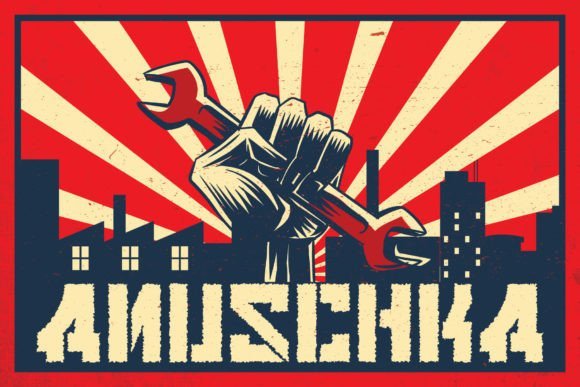
When Inspiration Strikes Do you ever find yourself browsing through vintage shops or antique stores, mesmerized by the retro aesthetic of old communist-era propaganda posters? That’s exactly where the creative spark struck for designers and artists who fell in love with the Anuschka Font. This cool, faux Cyrillic display font is an instant hit for…